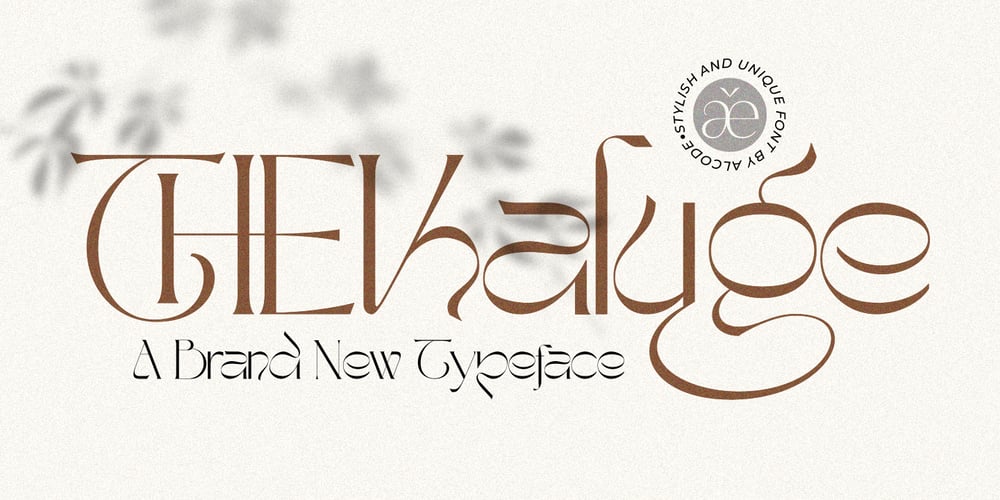
The Kaluge
The Kaluge font
The Kaluge Font Family was designed by Sukjana Almunandar and published by Alcode. The Kaluge contains 1 styles and family package options. The Kaluge is a stylish and unique font that will bring a unique style and a trendy look to your designs.Comes with Serif Decorative and Women Abstract Illustrations with trending ligatures and special character, this will make The Kaluga and Women Abstract Illustrations usable in all design projects and work perfectly to pair with any other font.With a unique styles you can create design such as wedding media, book covers, greeting cards, logos, branding, business cards and certificates, even for any design work that requires a classic, formal or luxurious look.Try The Kaluge, Enjoy the richness of OpenType features and let her fun and elegant excitement make you happy and enhance your creativity! You can use this font very easily.• Multilingual SupportIf you do not have programs that support OpenType features like Adobe Illustrator and CorelDraw X Versions, you can access all alternative flying machines using Font Book (Mac) or Character Map (Windows)